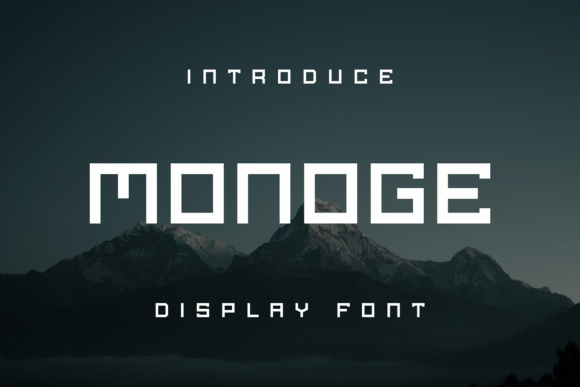
Introducing Monoge Font, the architectural marvel that will transform your designs into towering masterpieces. This display font, meticulously crafted by lelevien, is a symphony of straight lines, sharp angles, and bold strokes, possessing an undeniable presence that commands attention.
Monoge Font is not just a collection of letters; it's a passport to a world of limitless possibilities. Its intrinsic charm lies in its ability to mirror the sturdy foundations and soaring structures that define the construction industry. Whether you're an architect etching blueprints, a designer molding logos, or a creative professional seeking inspiration, Monoge Font is your blueprint for success.
With Monoge Font, your designs will exude an aura of solidity and precision, reflecting the unwavering spirit of construction. Its clean lines and geometric forms evoke a sense of stability, while its sharp edges convey strength and determination. This font is not for the faint-hearted; it's for those who dare to build empires and leave their mark on the world.
Imagine your architectural renderings adorned with Monoge Font, their lines dancing with newfound energy and purpose. Witness your logos transformed into symbols of resilience, standing tall against the test of time. Unleash your creativity and watch as Monoge Font elevates your designs to breathtaking heights, captivating audiences with its architectural prowess.
This font is more than just a visual treat; it's a testament to the human spirit's ability to shape the world around us. With Monoge Font, you become the architect of your digital dreams, constructing designs that inspire, provoke, and leave a lasting legacy.